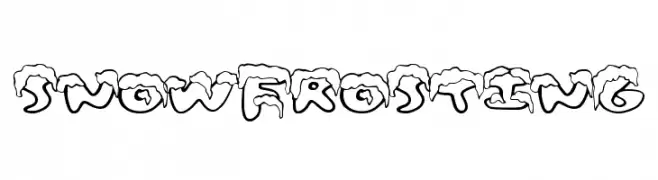
A thin, modern font with clean lines and balanced spacing.
A clean, modern font with rounded edges and excellent readability.
A bold, fur-textured font with a playful and wild aesthetic.
A playful, snow-capped font perfect for winter-themed designs.
A bold, zombie-themed dingbat font with horror illustrations.
A whimsical, snow-themed decorative font with intricate details.
A playful, snow-themed decorative font with bold, chunky characters.